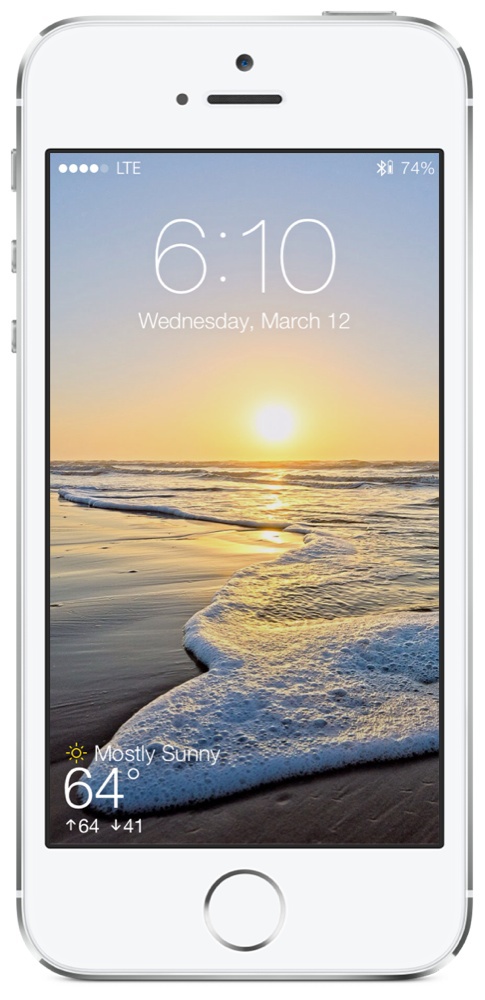
HankHowdy macrumors 68040 Original poster Mar 12, 2014 #1 Has anyone been able to change the font for Forecast?
eyoungren macrumors Nehalem Mar 12, 2014 #2 HankHowdy said: Has anyone been able to change the font for Forecast? Click to expand... Does Bytafont not work, or Bytafont 2 if you're on iOS 7?
Grayburn macrumors 68030 Mar 12, 2014 #3 eyoungren said: Does Bytafont not work, or Bytafont 2 if you're on iOS 7? Click to expand... Bytafont 2 does change Forecasts font.
eyoungren macrumors Nehalem Mar 12, 2014 #4 Grayburn said: Bytafont 2 does change Forecasts font. Click to expand... And Bytafont changes the Forecast font on iOS 6. So, I'm guessing he doesn't have Bytafont 2 or it's not working (assuming he's on iOS 7).
HankHowdy macrumors 68040 Original poster Mar 12, 2014 #5 Grayburn said: Bytafont 2 does change Forecasts font. Click to expand... Temp is too bold. Doesn't seem to match.
Grayburn macrumors 68030 Mar 13, 2014 #6 HankHowdy said: Image Temp is too bold. Doesn't seem to match. Click to expand... Yeah i see your point there, i'm using subtleLock so it's less noticeable for me.
HankHowdy macrumors 68040 Original poster Mar 14, 2014 #7 Anybody have any ideas on how I can change the font for Forecast? I'm using ultra light for iOS 7 beta 1.